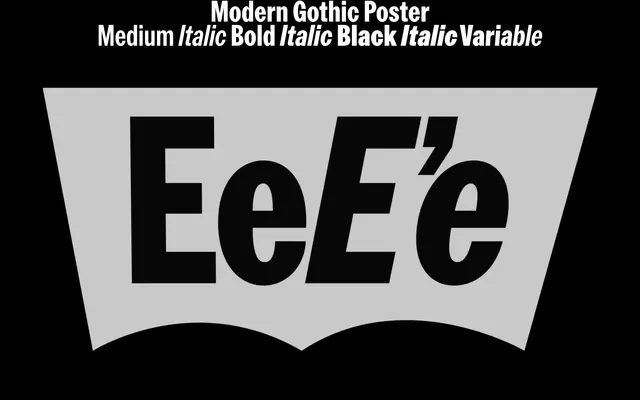
Modern Gothic Poster
AllCaps · Malte Bentzen · 2025
Modern Gothic Poster specimen from AllCaps
A narrower, high-contrast poster cut completing the Modern Gothic trilogy, drawn from early American gothic sources including Franklin Gothic and Barnhart Brothers condensed gothics.
Designed by Malte Bentzen and released in 2025, it refines every curve and counter rather than simply condensing the standard Modern Gothic, resulting in oval-shaped terminals and increased stroke contrast that suit large-scale display work. Three weights — Medium, Bold and Black — each come with a matching italic, plus a variable font, and the proportions are balanced to pair with the Modern Gothic Standard and Mono siblings. Historical reference material from Barnhart Brothers & Spindler (1901) and American Type Founders (1906) underpins the design, carrying features like the double-storey g forward into a contemporary cut.
The foundry classifies it as Neo Gothic/Grotesk, drawing on early American gothics such as Franklin Gothic and Barnhart Brothers condensed gothics. It shares the double-storey g and sturdy terminals characteristic of the American grotesque tradition.